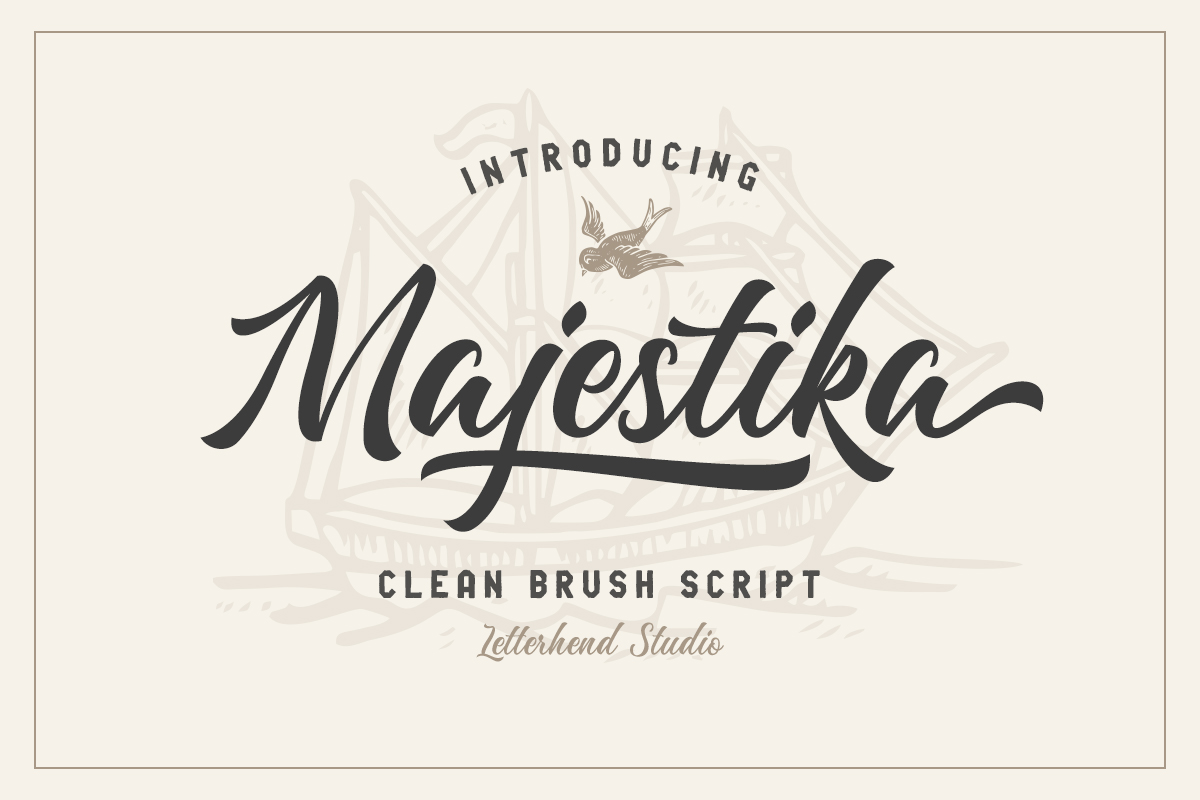
Majestika Script Font
This regal and sophisticated typeface is perfect for luxury hotel branding, royal wedding invitations, high-end jewelry packaging, premium wine labels, aristocratic family crests, exclusive club memberships, palace event materials, luxury real estate branding, and elite corporate communications that require an imperial, majestic aesthetic.
Majestika Script Font brings excitement to design projects with its commanding presence and royal elegance that embodies the grandeur of classical monarchy. The font features elaborate flourishes and ornate letterforms with dramatic swashes that convey power, prestige, and aristocratic refinement. Its imperial character and majestic flow make it an ideal choice for brands that want to communicate luxury, exclusivity, and sovereign authority in their visual communications while maintaining dignified readability.
The Majestika Script Font family includes various imperial styles: Regular, Bold, Light, Ornate, Crown, Flourish, and Royal versions. Each variant maintains the font's distinctive majestic character while providing designers with complete flexibility for creating luxurious hierarchical systems. The family also features elaborate crown ornaments, royal decorative elements, imperial ligatures, and aristocratic symbols that enhance the overall regal aesthetic.
When searching for luxury script typography solutions, Majestika Script Font Free Download represents the pinnacle of royal design excellence and aristocratic sophistication. Professional designers consistently select this font for its ability to instantly elevate brand perception to imperial levels while ensuring optimal legibility across prestigious applications. The typeface performs magnificently from intimate royal invitations to grand palace signage, maintaining its majestic presence at every scale.
The font's royal craftsmanship includes precision-engineered flourishes, balanced ornamental details, and superior reproduction quality that honors traditional calligraphic excellence. Whether you're designing for luxury hospitality brands, exclusive membership organizations, or premium product lines, this font delivers the sovereign elegance that commands respect and admiration from discerning audiences seeking ultimate luxury experiences.